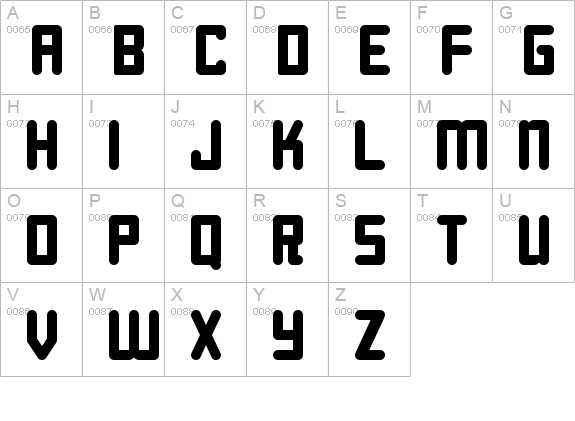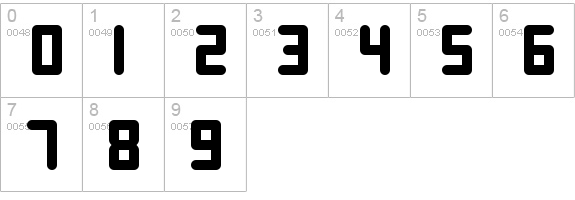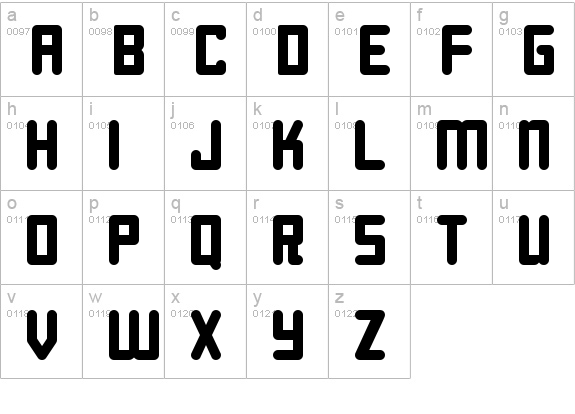
Roundish Font Details
Roundish is a free for personal use font in the Modern > Techno category, designed by Darrell Flood. It has been downloaded 94 times and is available for Windows, Mac and Linux.
Roundish font is a charming and versatile typeface that adds a touch of softness and modernity to any design project. With its rounded edges and smooth curves, Roundish is perfect for creating a friendly and approachable look. Whether you're designing a logo, website, or poster, this font is sure to make a statement.